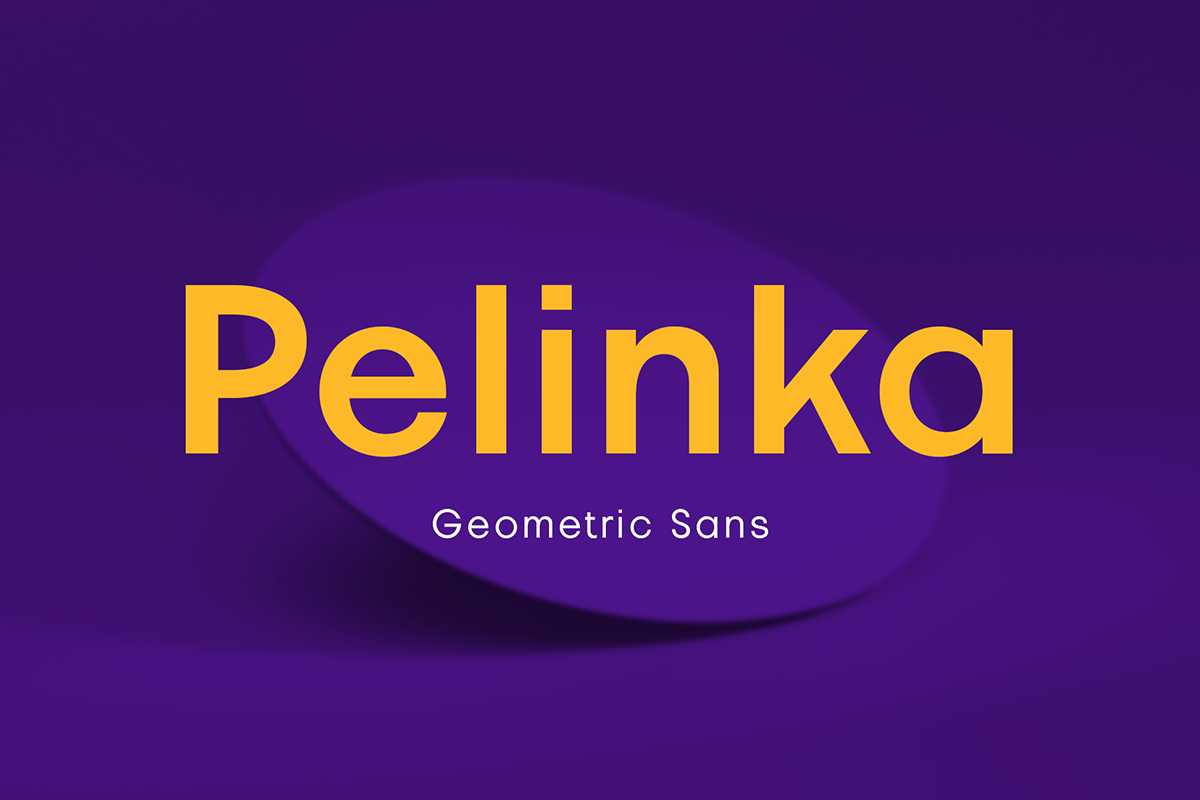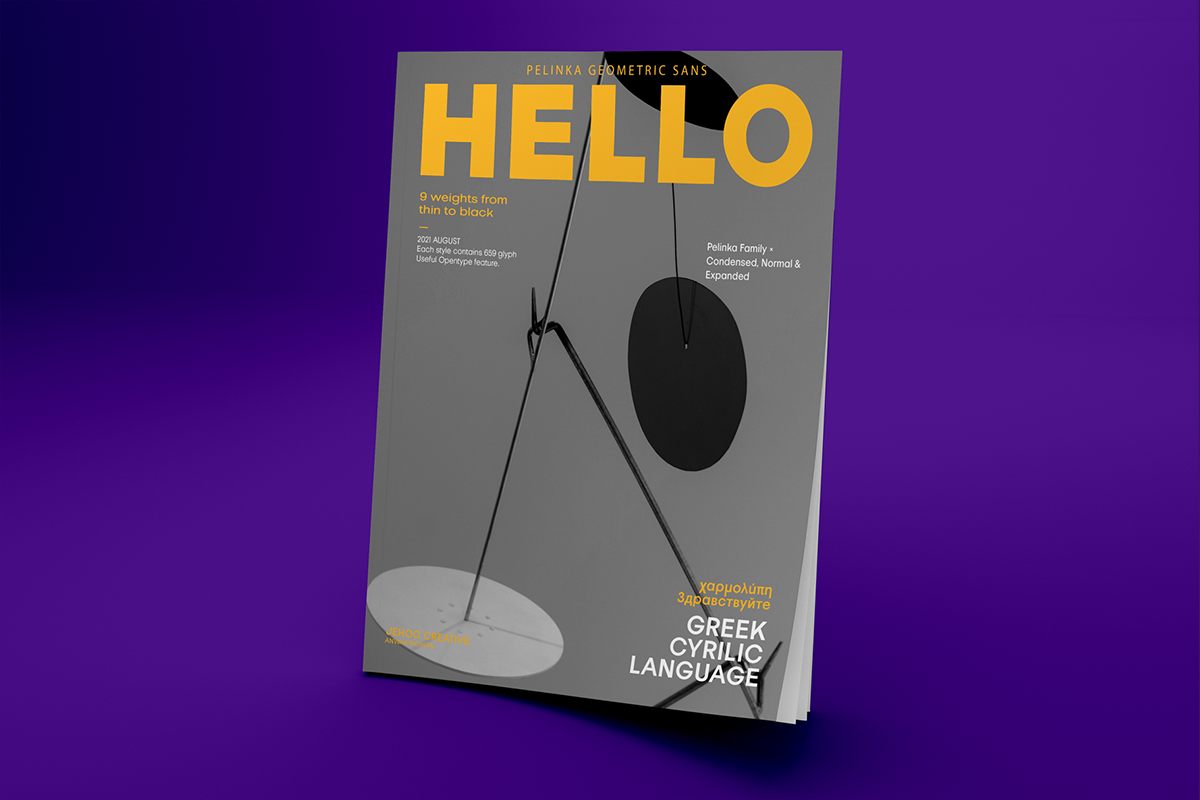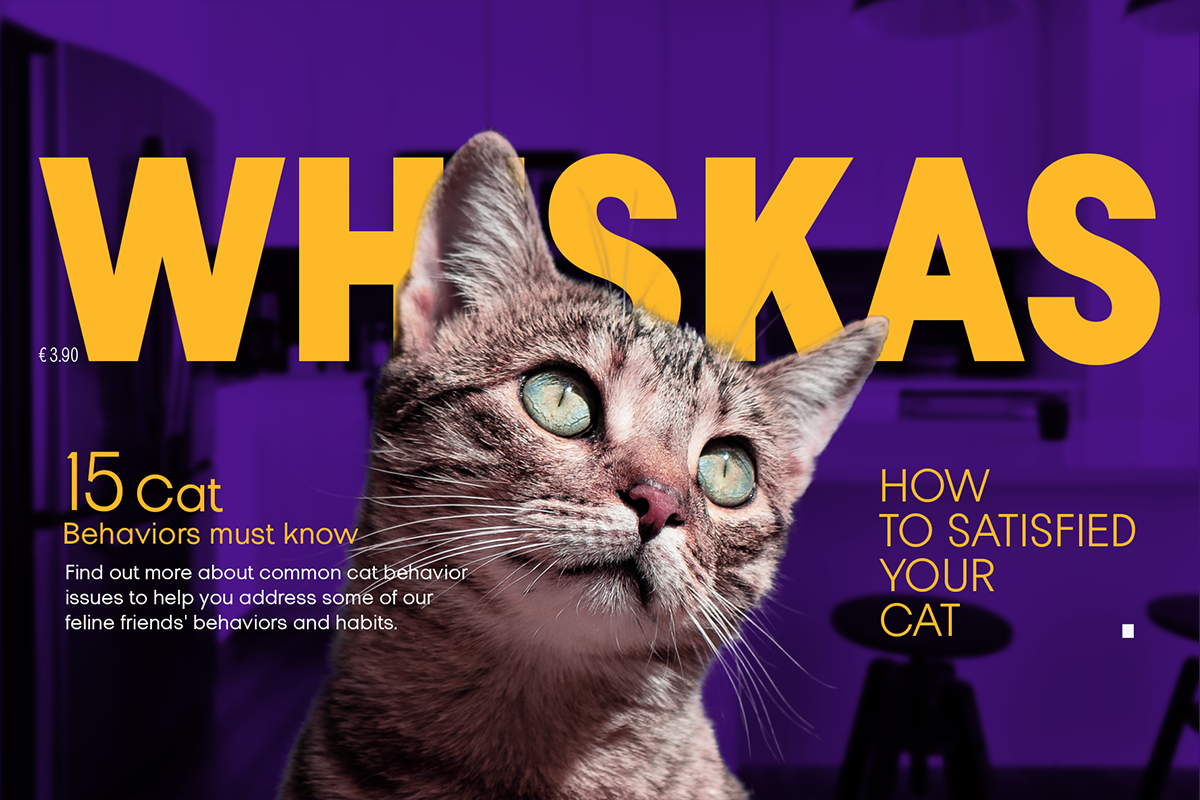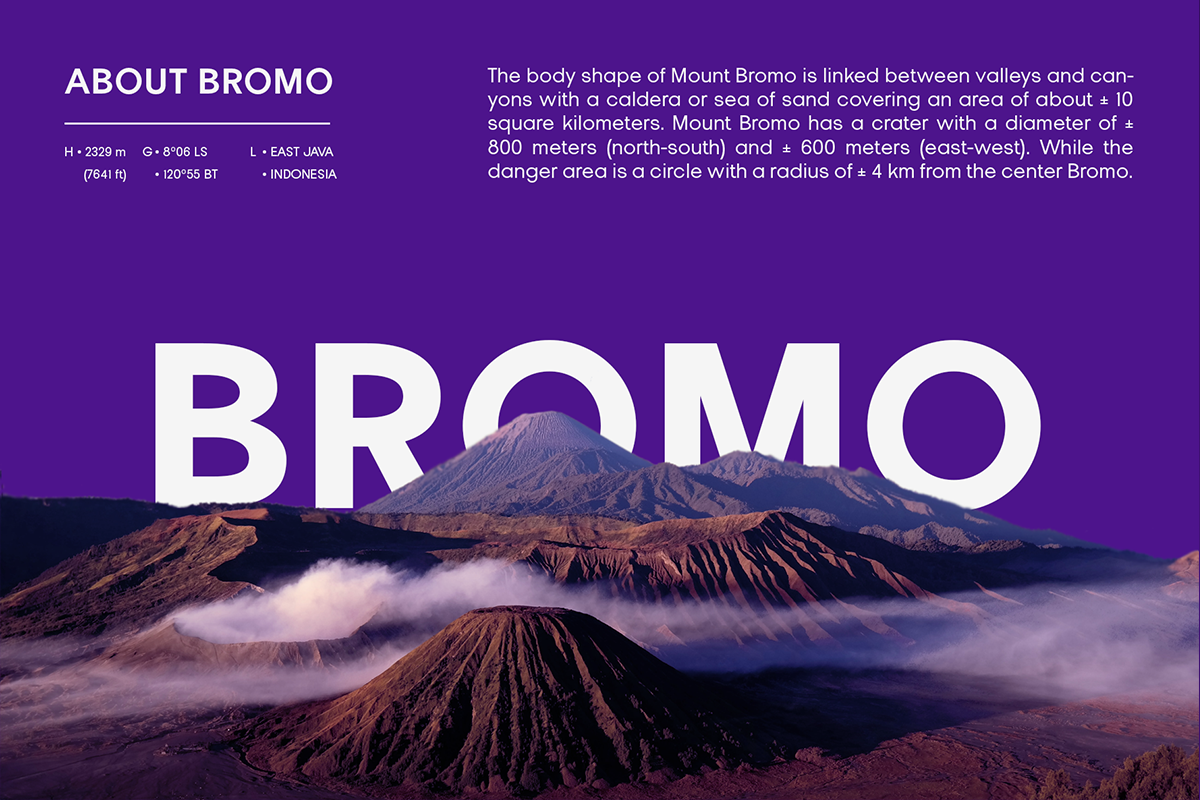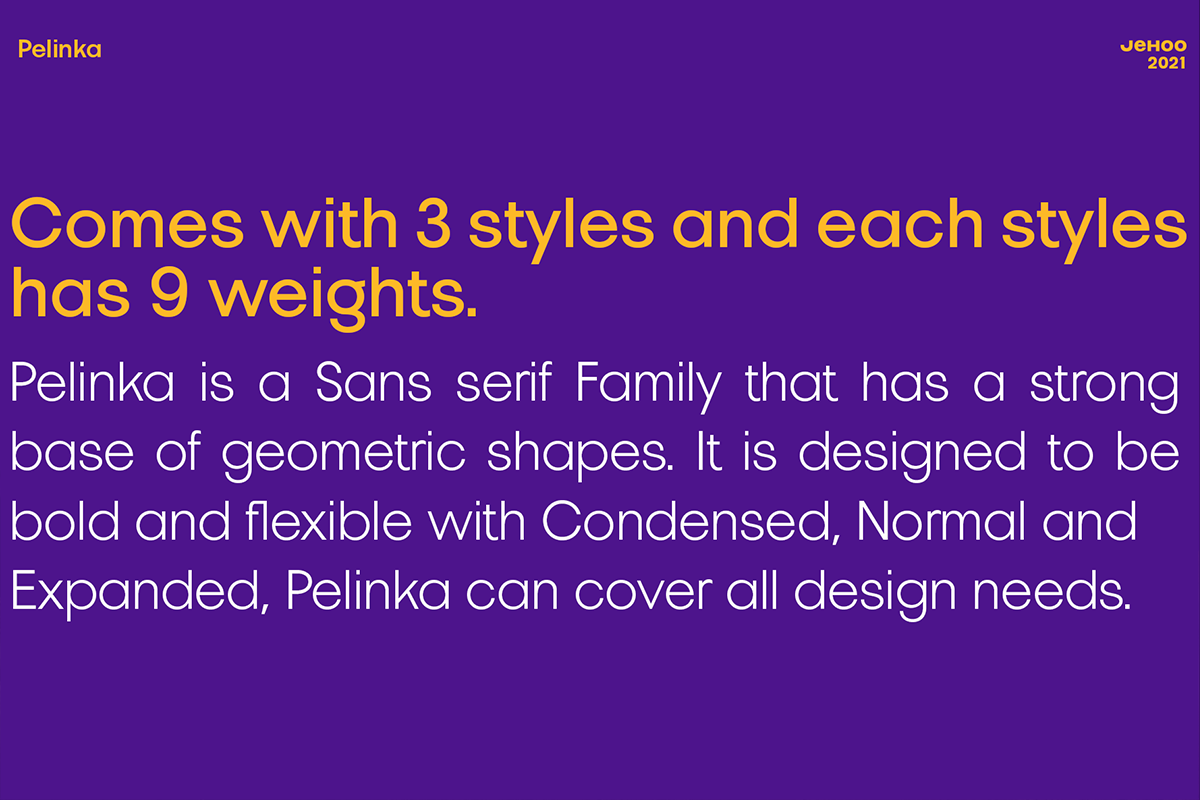
Pelinka Free Geometric Font is the part of a Sans serif Family by Jehoo Creative. It has a solid foundation of geometric shapes designed to be bold and flexible. This typeface has all the widths needed to meet various design needs, Condensed, Normal and Expanded each width has 9 weights. Pelinka also includes support for Cyrillic and Greek Alphabets.